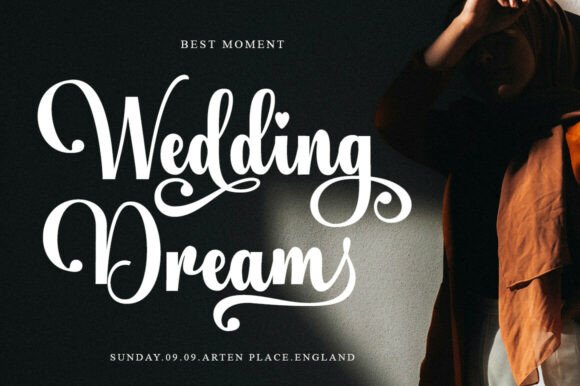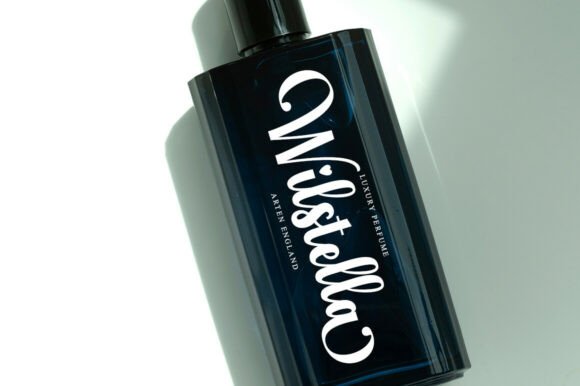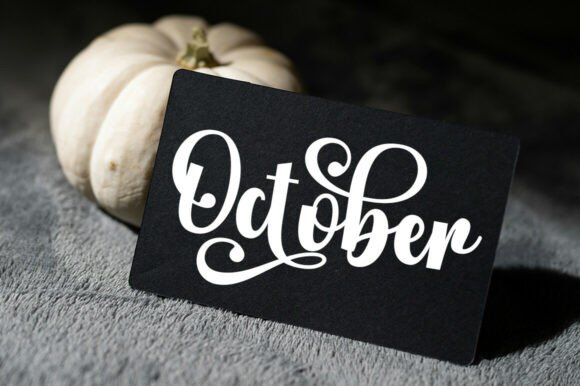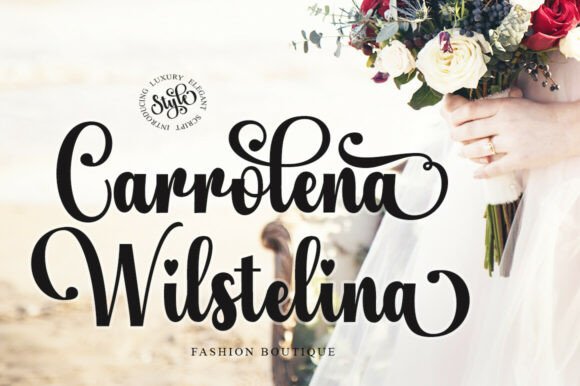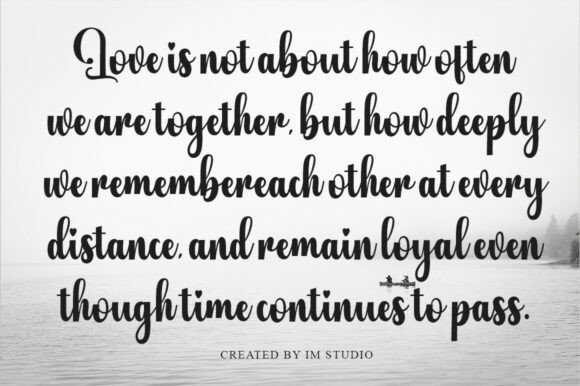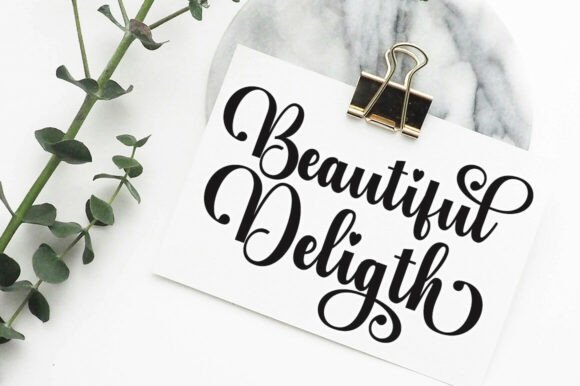
Thicker Vintage Font
Experience the timeless allure of Thicker Vintage – a bold, sophisticated signature typeface that seamlessly melds the classic appeal of vintage designs with contemporary finesse. Each smoothly caressed stroke and sophisticated curve calls forth an authentically handwritten vibe, making it an immaculate component for projects requiring a splash of genuine luxury and finesse. Meticulously crafted, Thicker Vintage exudes a balance in form, abundant character, and sublime beauty within each letter. Whether it’s for branding initiatives, wedding stationery, luxurious packaging, trendy logos, or high-end editorial jobs, this typeface casts a nostalgic warmth infused with a sleek modern flair. Thanks to the inclusion of PUA encoding, you can leverage full creative control with all special characters, ligatures and garnishing elements, without having to rely on additional software. Prepare to marvel at Thicker Vintage, where vintage style meets modern sophistication.